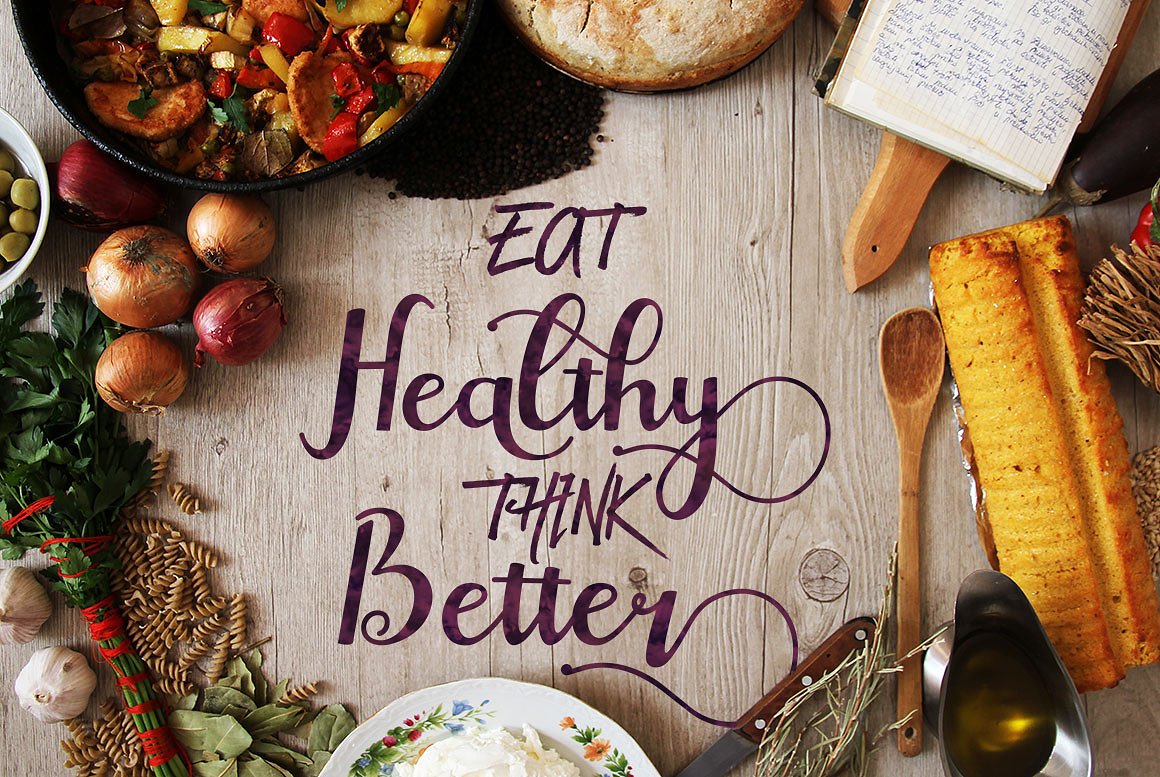
Destiny Script
Destiny Script Font
Destiny Script is a modern calligraphy typeface with traditional hand writing. Destiny Script multipurpose and flexible fonts, make it easy to match with another typefaces to create some beautiful project such as wedding invitation, vintage design, greeting card, poster, book cover, illustration, etc.